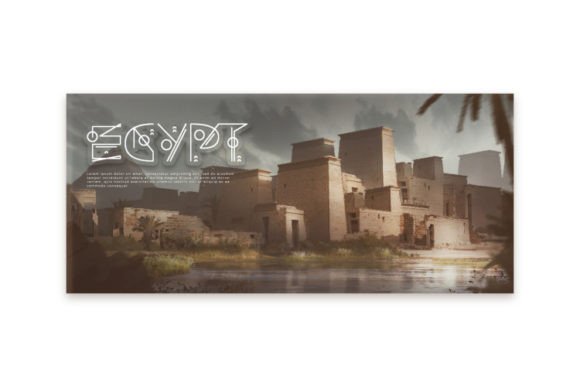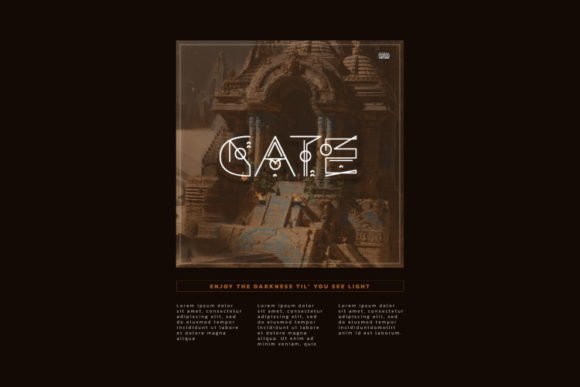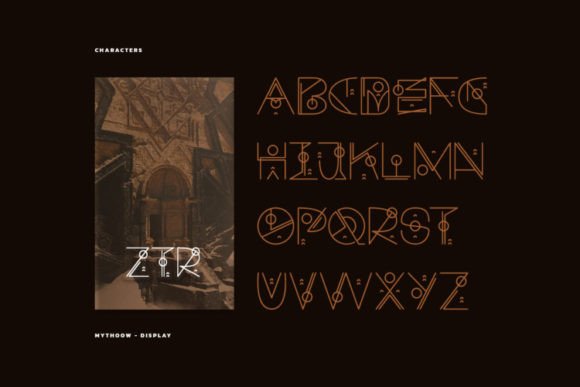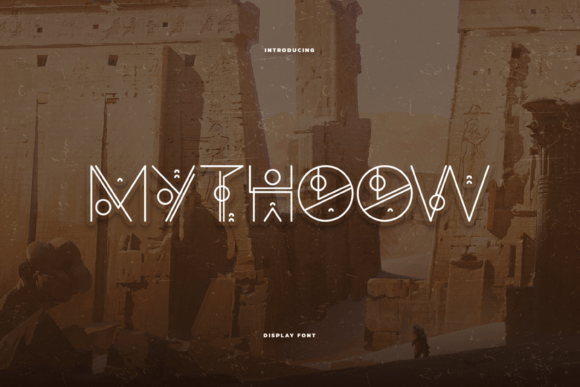
Introduction to Mythoow Font
Mythoow is a unique and interesting display font.
With its exquisite and intricate style, this font has the potential to elevate any creation .
Key Features of Mythoow Font
Why Choose Mythoow Font?